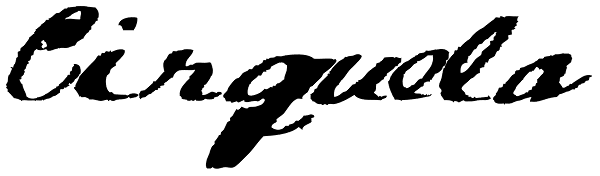
Cirquela
Cirquela is a new direction in type design for me. This is my first calligraphy font and my first hand drawn. This is a limited character set, but as I continue to explore this space, I hope to expand the character sets of fonts I offer for sale. In...